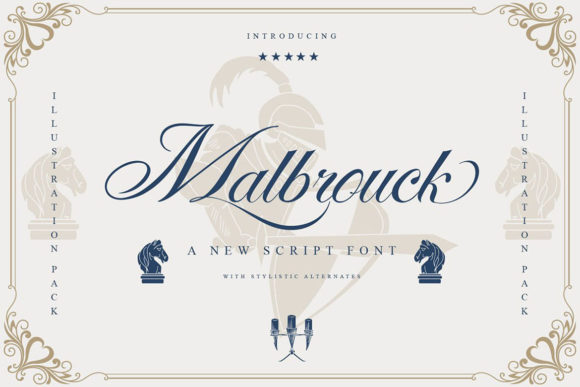
Dive into the enchanting world of Malbrouck Font, a captivating script font that will leave you spellbound. This masterpiece by JumboDesign is not just a font; it's an artistic journey that transports you to a realm of elegance and creativity.
Imagine your designs adorned with Malbrouck's timeless beauty, its smooth lines flowing like a gentle melody. Each letter is a work of art, meticulously crafted to evoke a sense of authenticity and sophistication. The gorgeous glyphs and stunning alternates add an extra layer of charm, making your projects truly unique.
With Malbrouck, you'll unlock a world of endless possibilities. Create breathtaking invitations, add a touch of magic to your logos, or let your imagination run wild in your crafting adventures. This font is the perfect companion for any project that demands a touch of elegance and a dash of whimsy.
But Malbrouck is more than just a pretty face. It's a font that speaks to your soul, evoking emotions and telling stories. Its enchanting curves and delicate details will capture the hearts of your audience, leaving them mesmerized and inspired.
So, embark on this creative odyssey with Malbrouck Font. Let its timeless beauty elevate your designs, touch hearts, and create memories that will last a lifetime. Join the creative revolution and make your mark on the world with Malbrouck, the enchanting script font that will transform your designs into works of art.